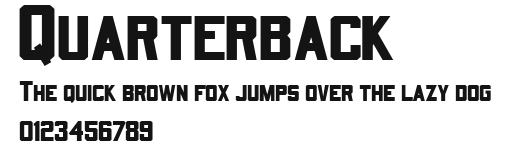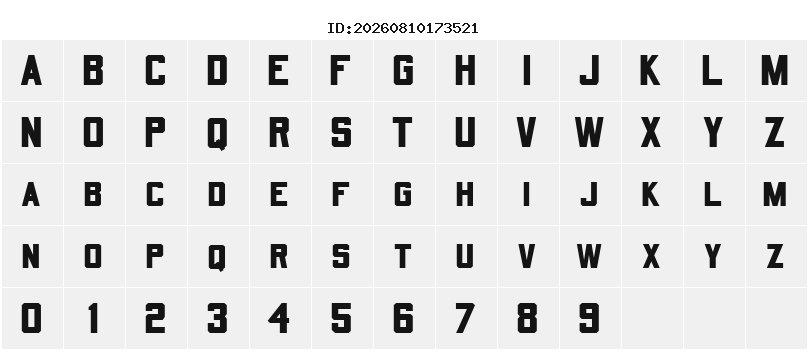
Quarterback Preview
• Font Name: Quarterback
About Quarterback.ttf
Quarterback.ttf is a modern, elegant sans-serif font designed for ultimate readability and visual harmony. Perfect for branding, headlines, web design, and print materials.